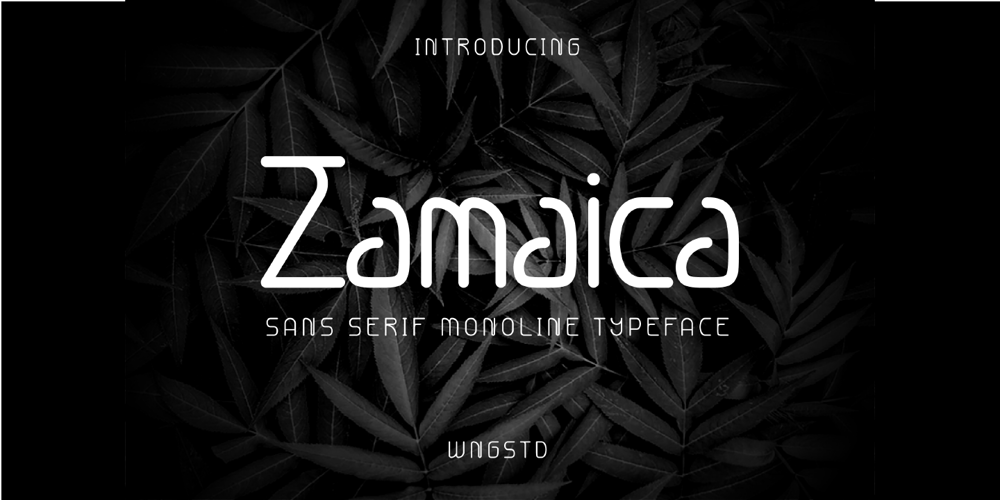
Zamaica
Zamaica font
Zamaica Font Family was designed by Yahhya Anas Atok Illah and published by WNGSTD. Zamaica contains 1 styles and family package options. Zamaica is a thin and modern display font. Add it to your most creative ideas and notice how it makes them come alive!